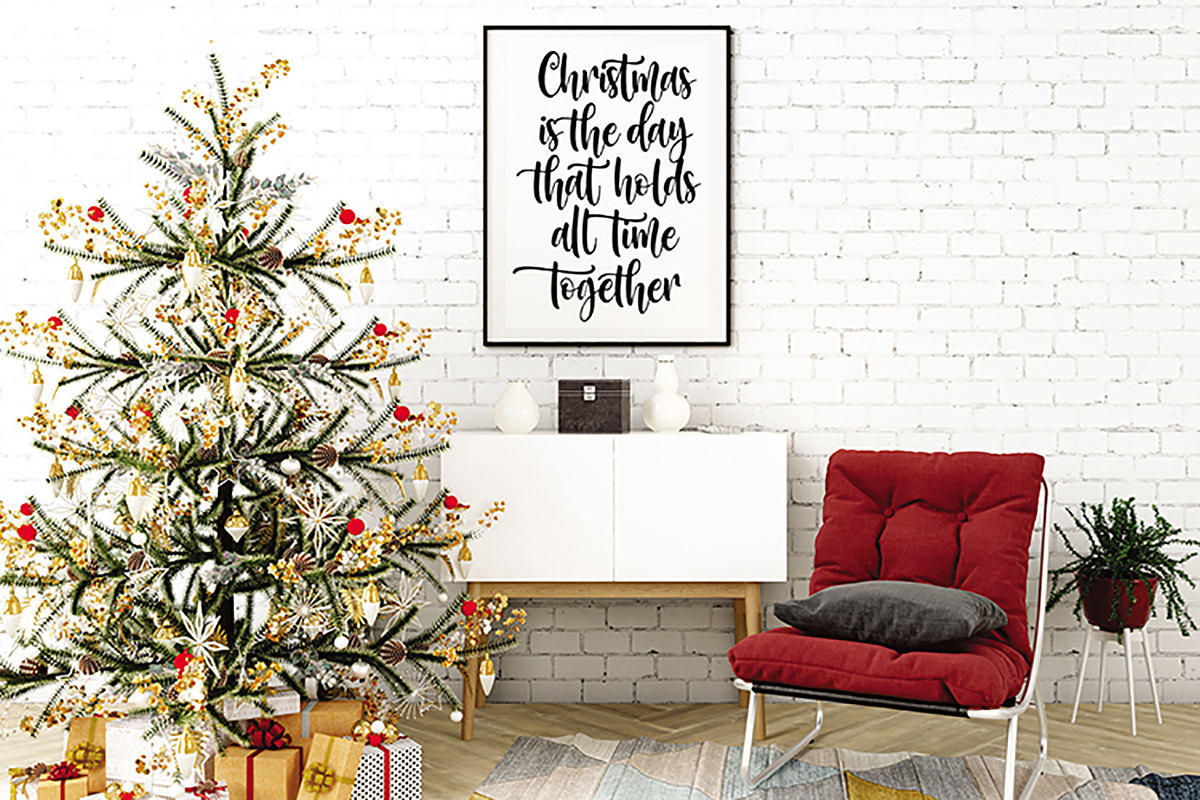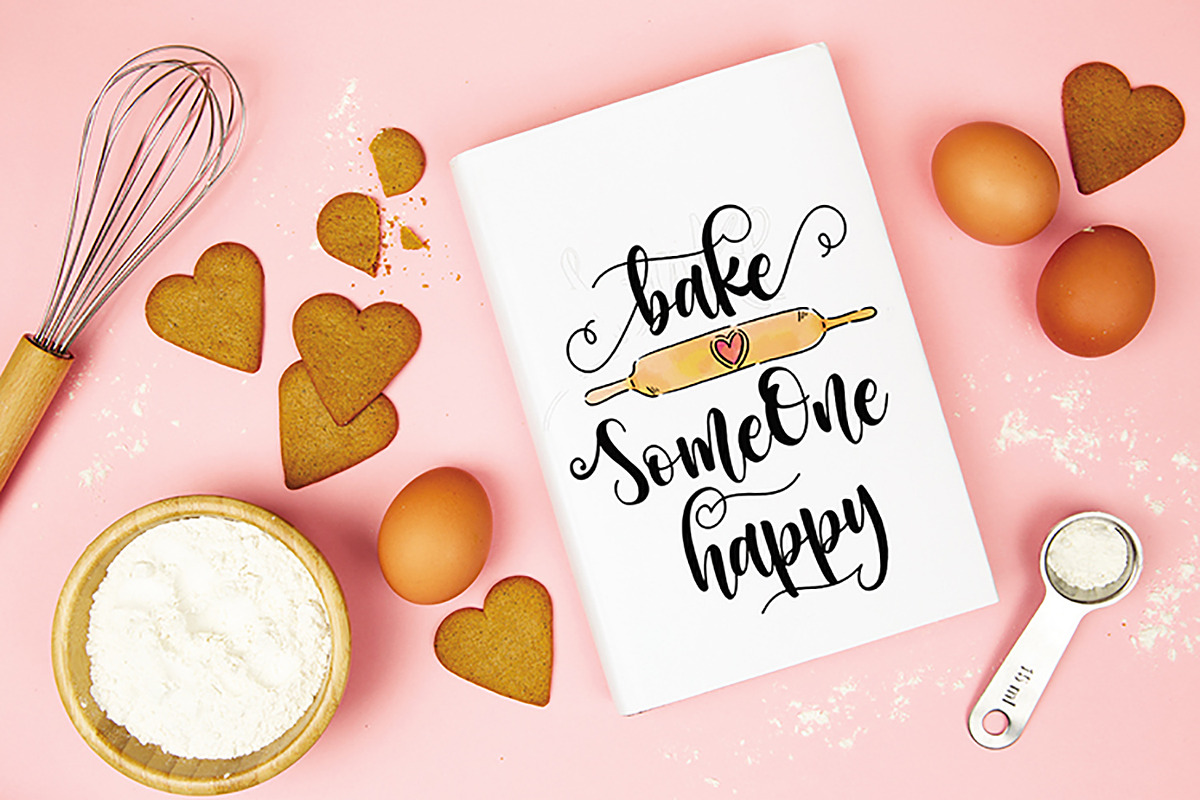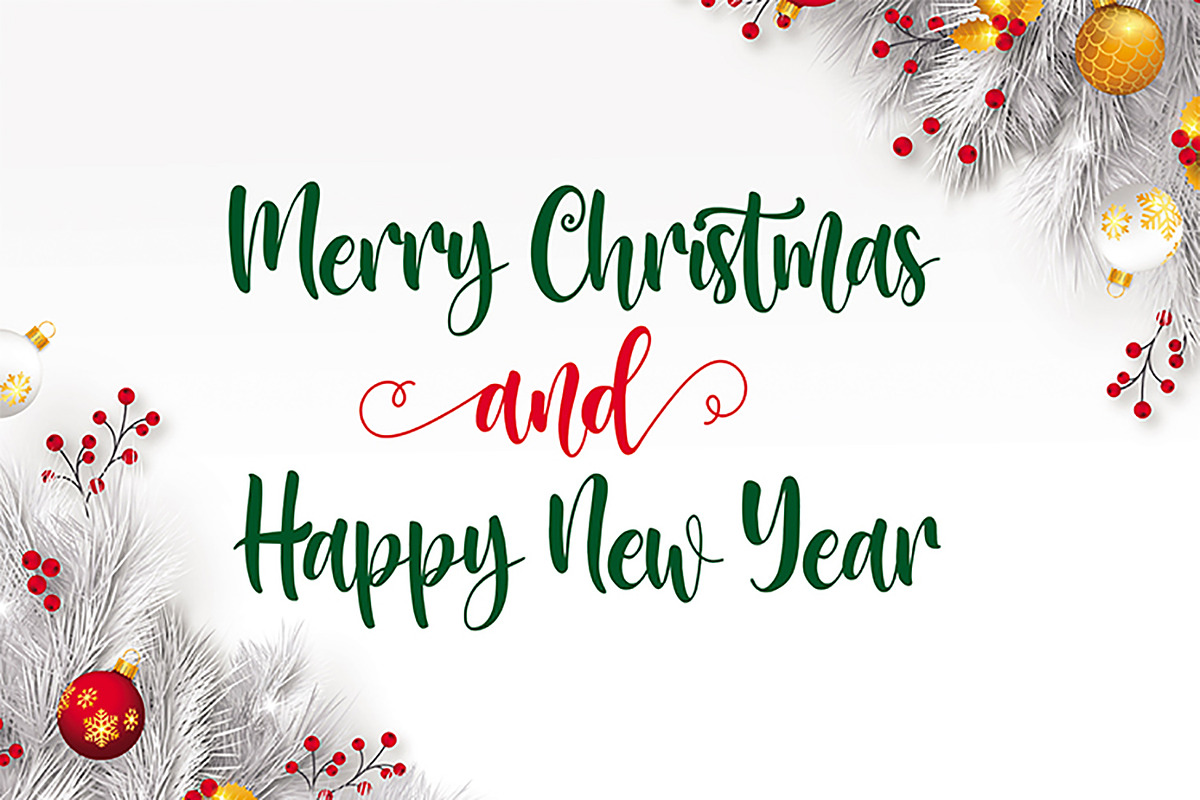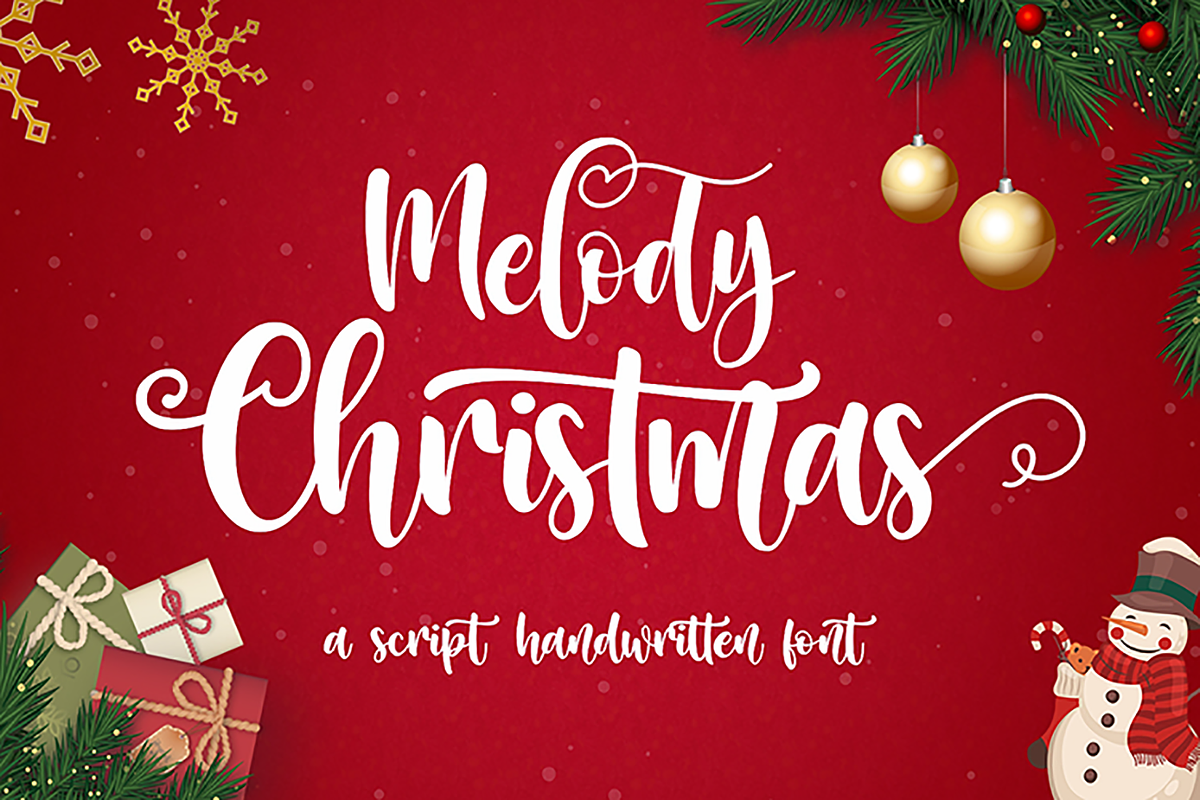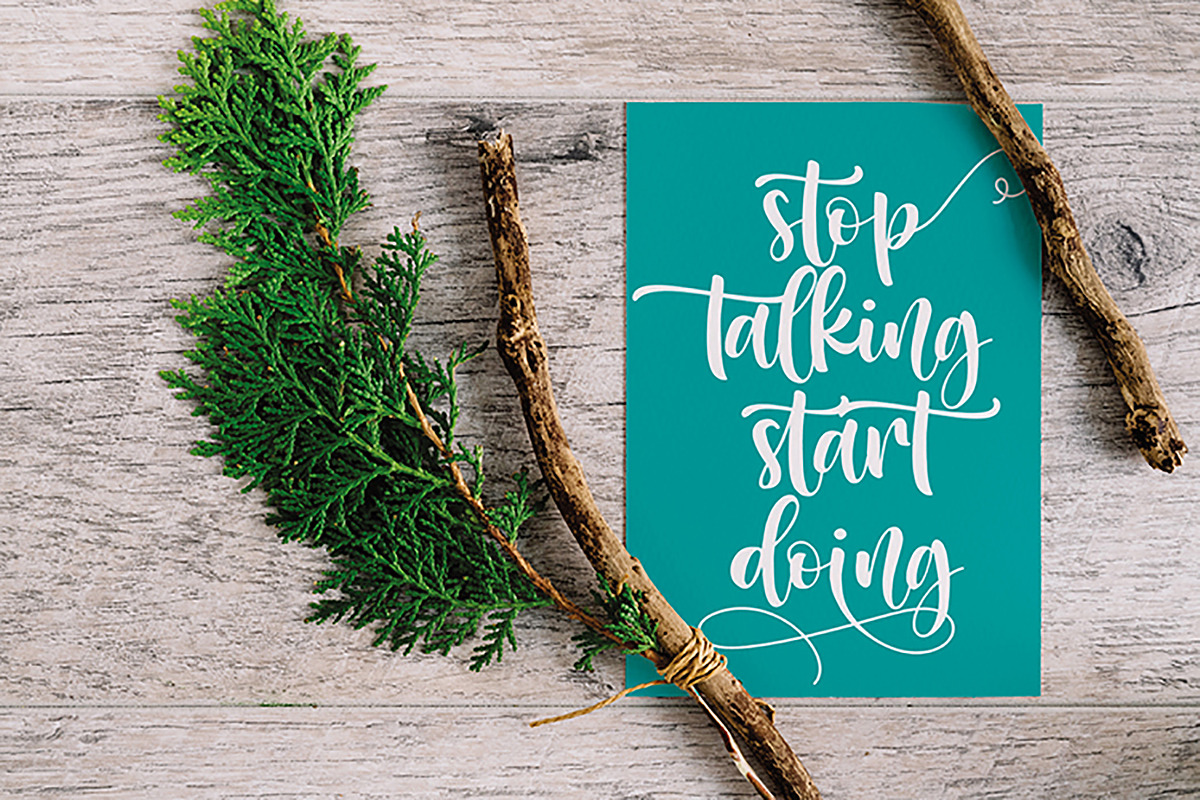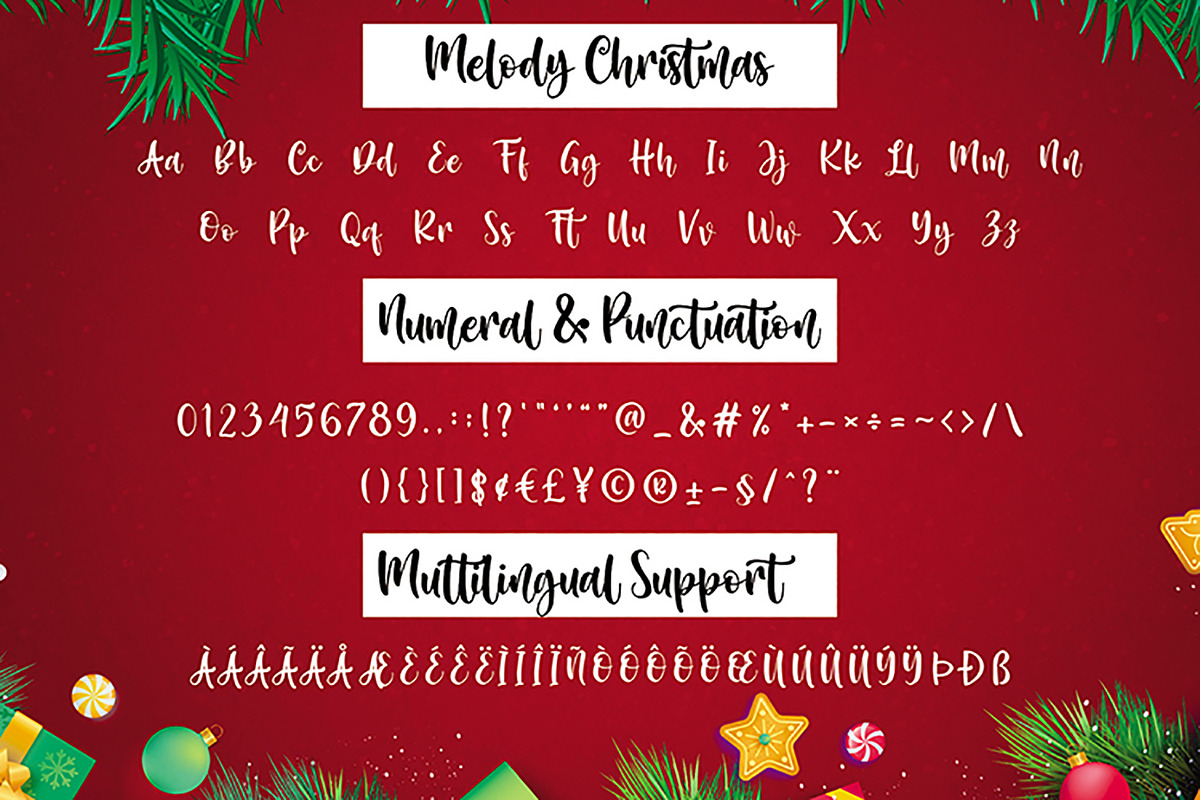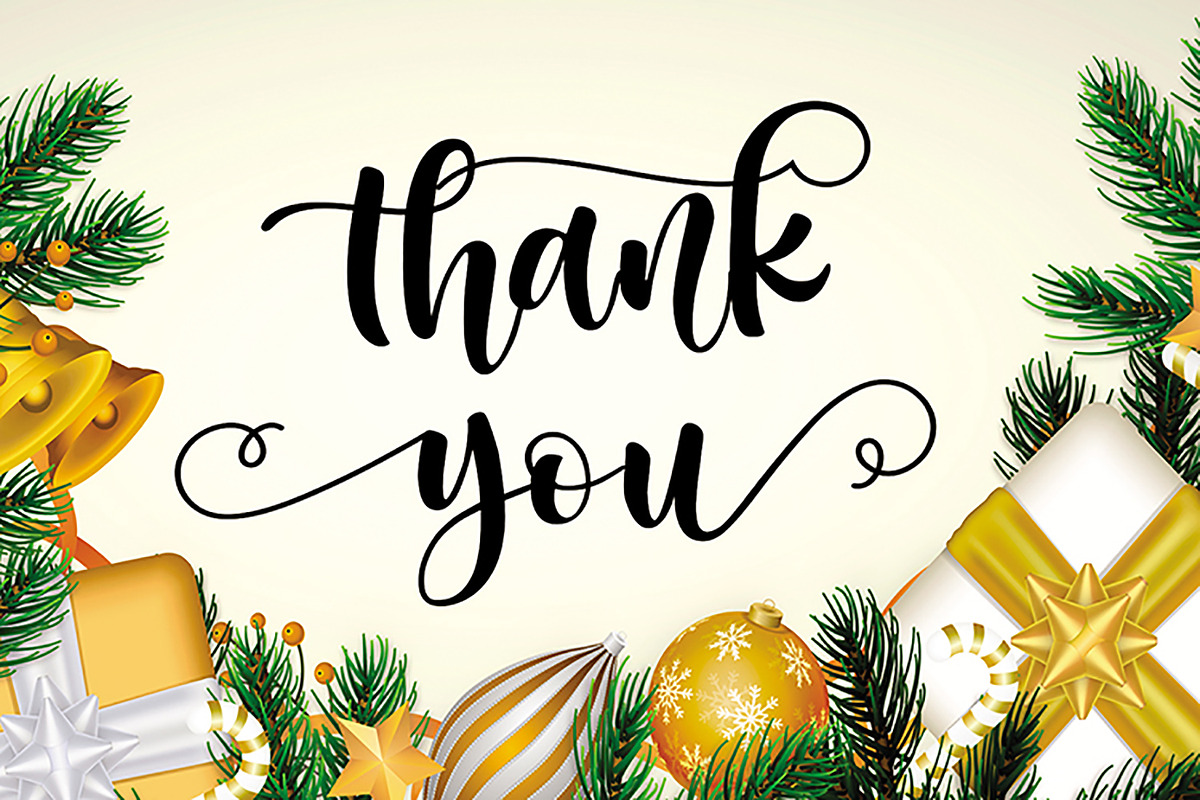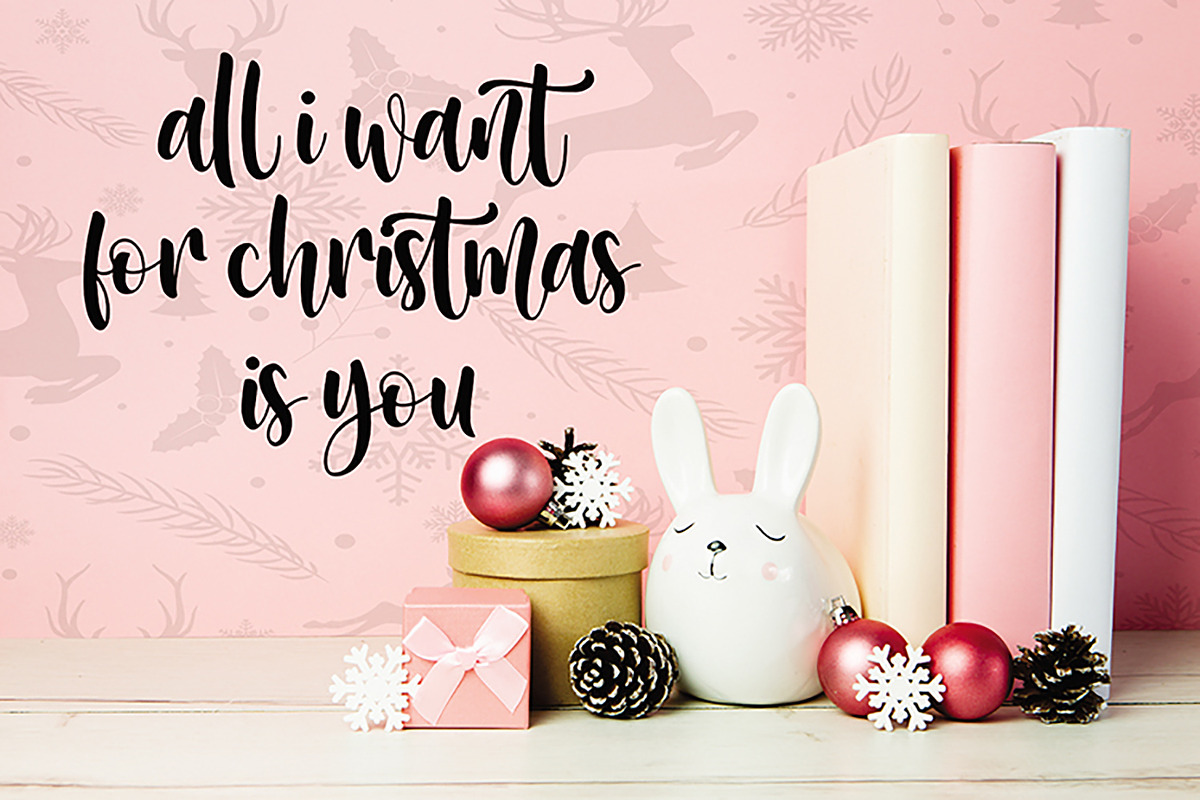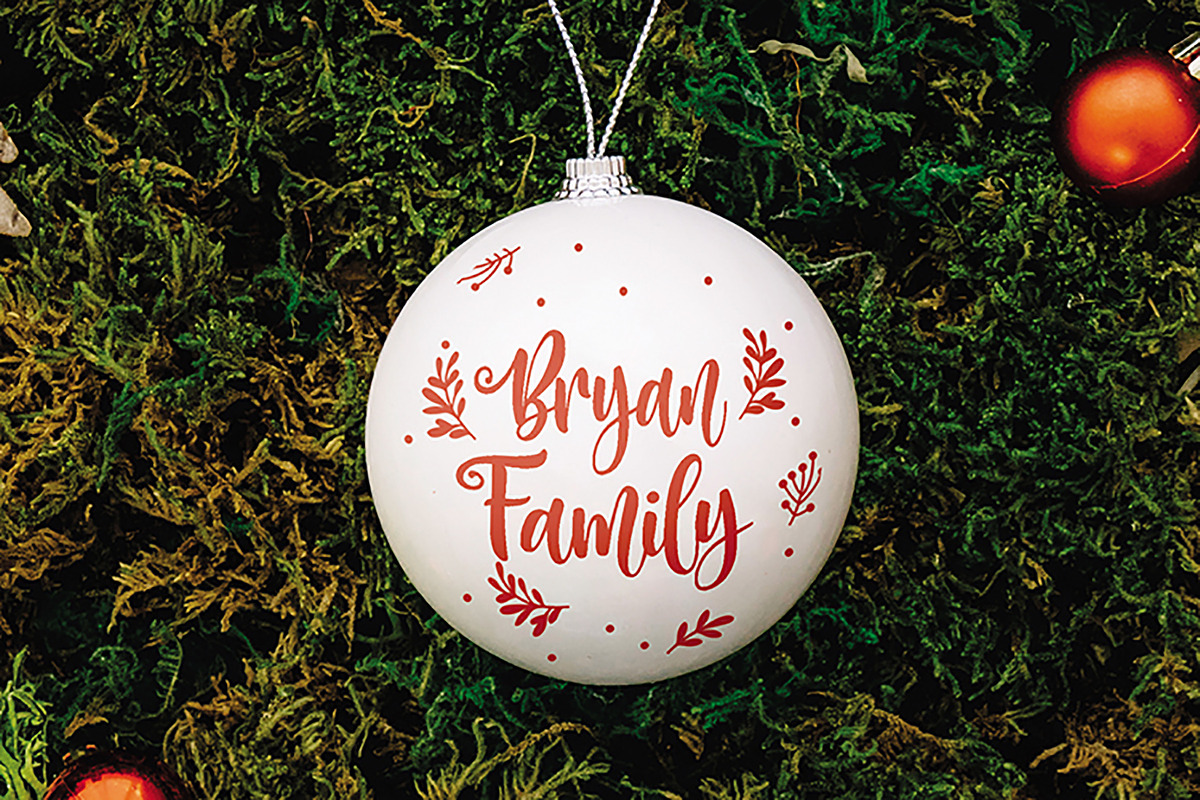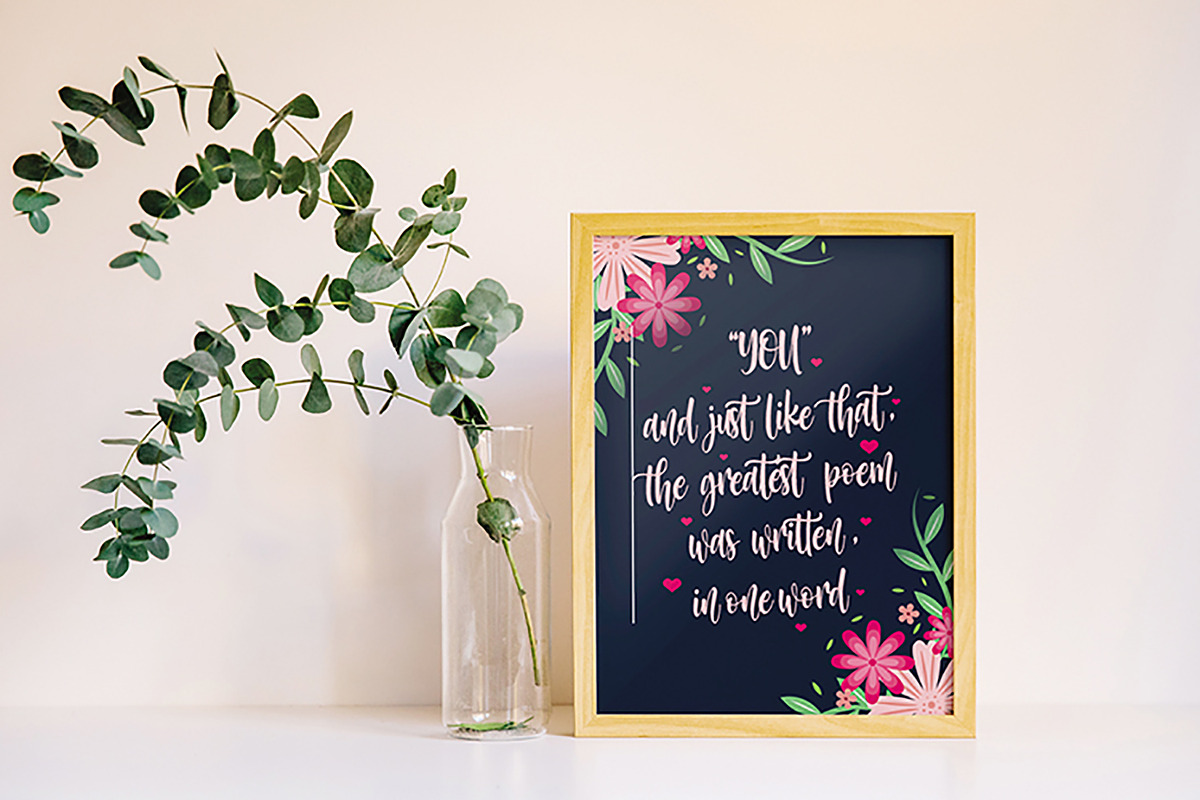
Melody Christmas
Melody Christmas is a modern and flowing handwritten font. It is PUA encoded which means you can access all of the glyphs and swashes with ease!
This font is ideal for crafting, branding, and decorate your any project. This font is perfect for wedding invitations or your blog. Also with their help, you can create a logo or beautiful frame for your home. Or just use it for your business, book covers, stationery, marketing, magazines, and more.
Fall in love with its incredibly versatile style and use it to create spectacular designs! Use this font for any crafting project that requires a personalized look!